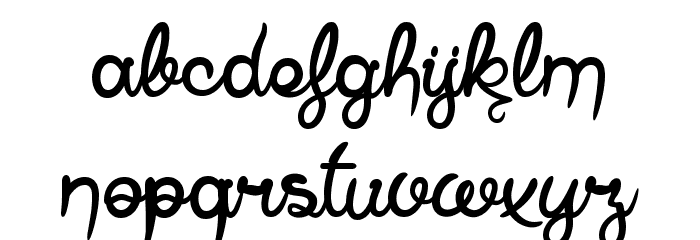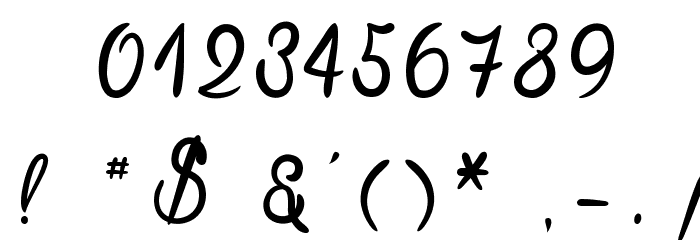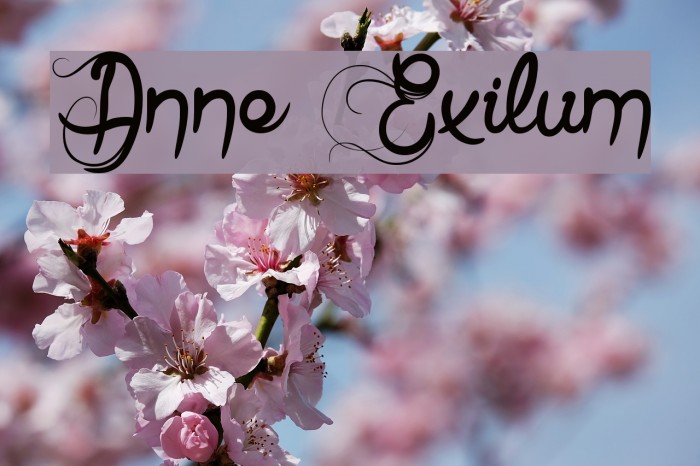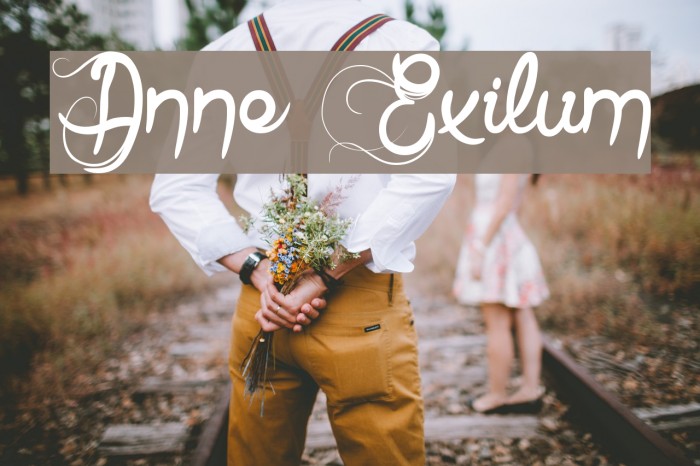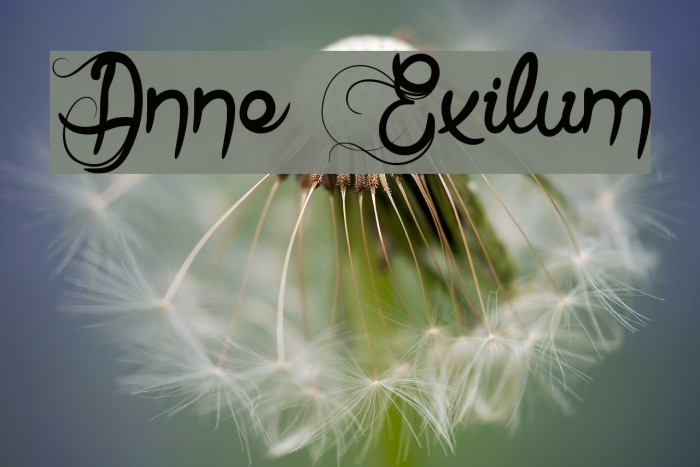
Anne Exilum Font
This font features an elegant and decorative style, characterized by intricate swirls and flourishes in the uppercase letters, giving it a sophisticated and ornate appearance. The lowercase letters are more streamlined, with a smooth, flowing script that maintains readability while adding a touch of elegance. The numerals are consistent with the lowercase style, offering a cohesive look across all characters. Special characters are designed with similar attention to detail, ensuring they blend seamlessly with the overall aesthetic. This font is ideal for projects that require a touch of luxury and refinement.
An elegant, decorative font with ornate uppercase and smooth script lowercase.
- Proposed Projects: Wedding invitations, luxury branding, elegant packaging, and decorative headlines.
- Use Case: Headlines, Logos, Invitations